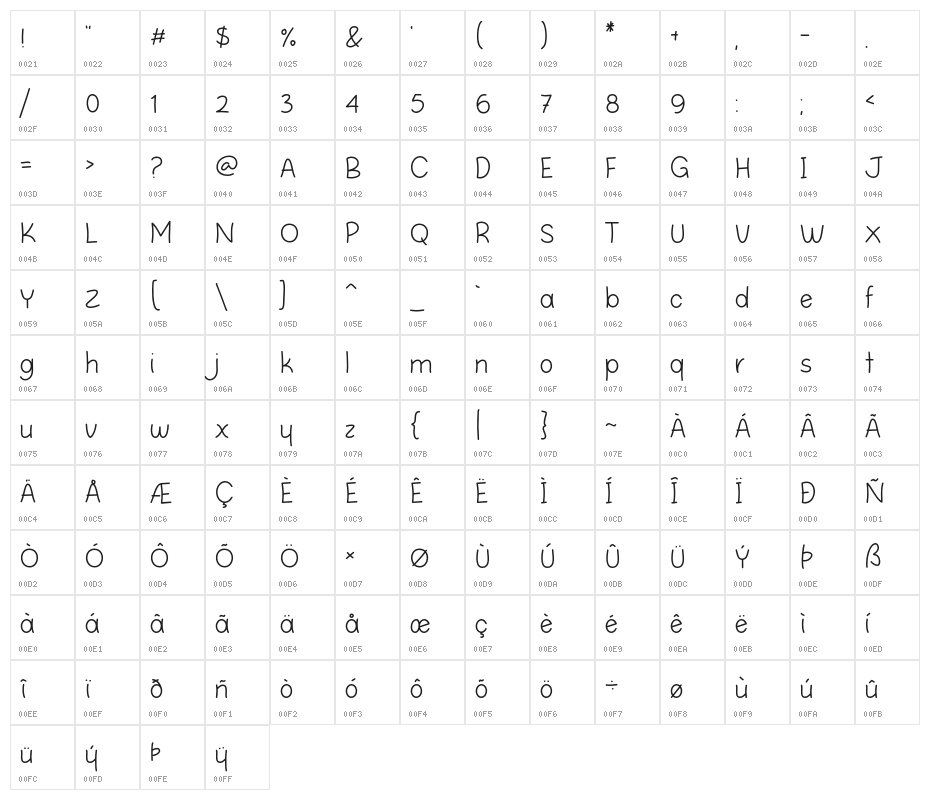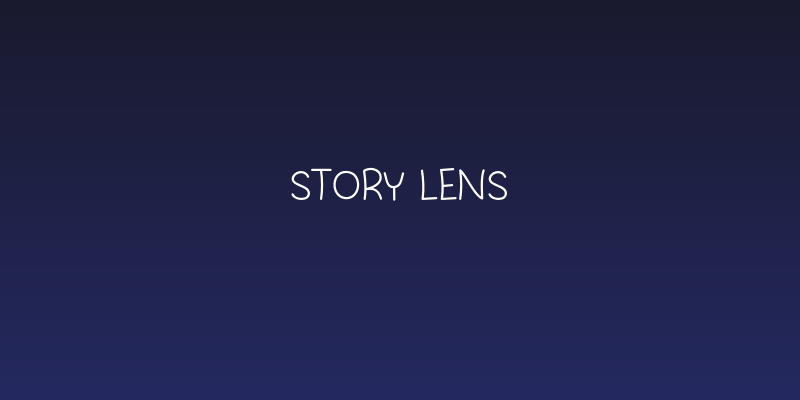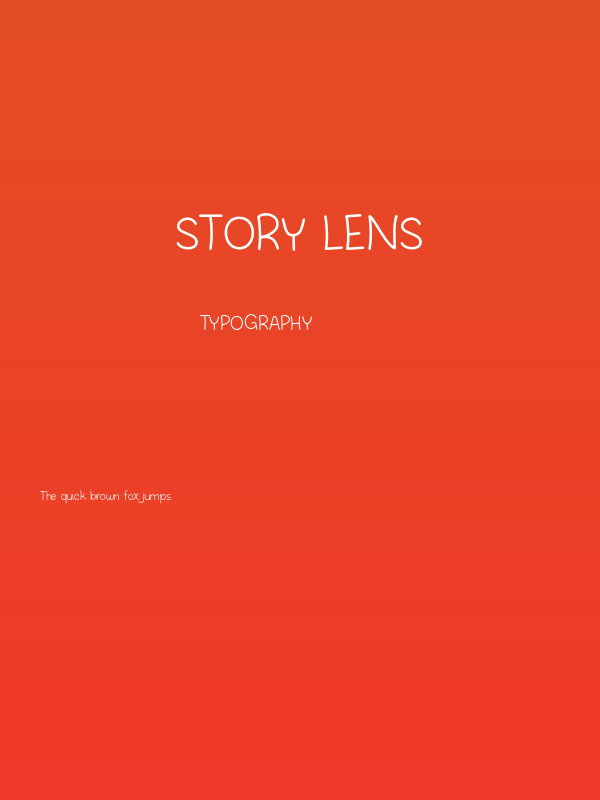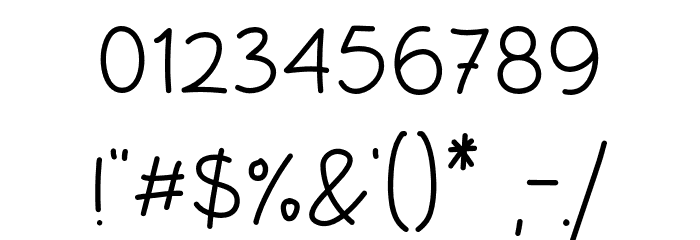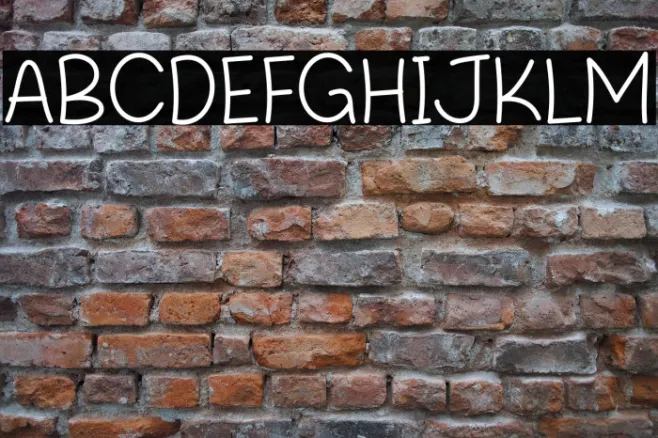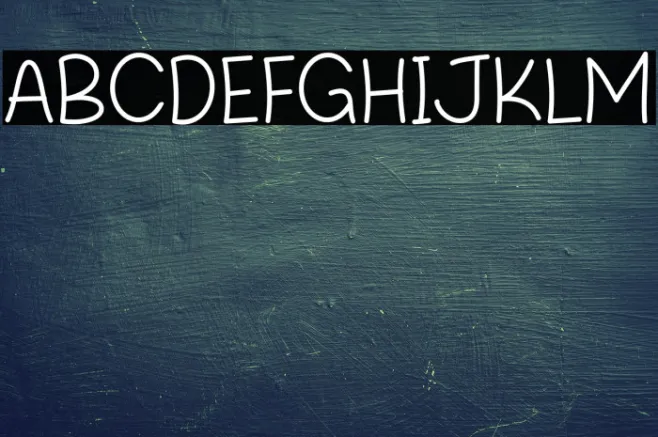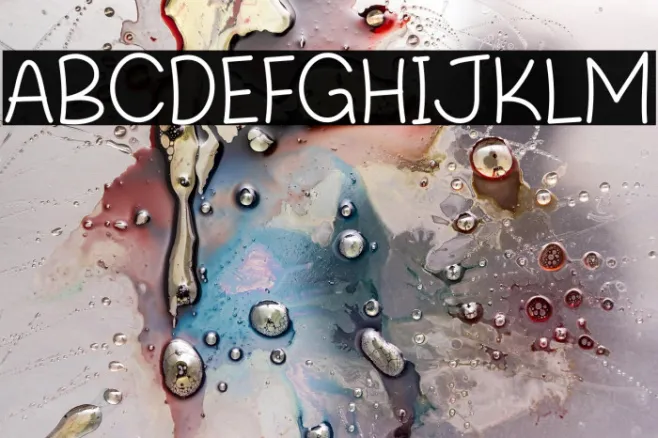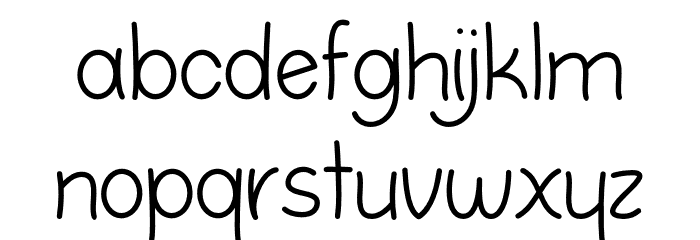
Story Lens Font
Story Lens Description
This font features a playful and informal style, characterized by its handwritten appearance. The letters are slightly irregular, adding a personal touch that mimics casual handwriting. The strokes are consistent in thickness, providing a uniform look across all characters. The font maintains a friendly and approachable vibe, making it suitable for projects that require a touch of whimsy or creativity. The rounded edges and smooth curves enhance its readability, while the overall design remains simple and uncluttered. This font is versatile and can be used in various contexts where a relaxed and informal tone is desired.
| Use Case | Headlines, Informal text, Creative projects |
| Proposed Projects | Ideal for children's books, greeting cards, casual invitations, and creative branding. |